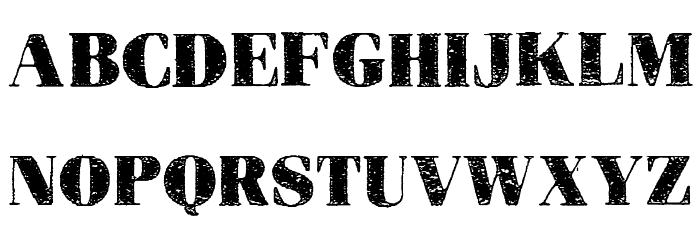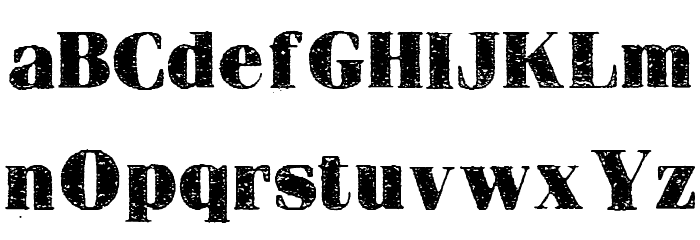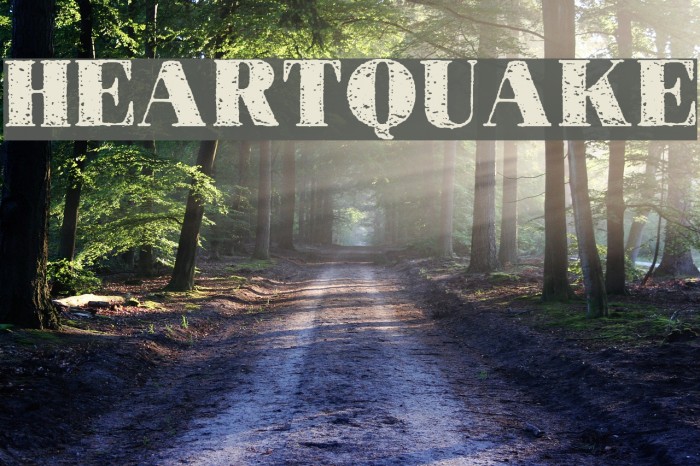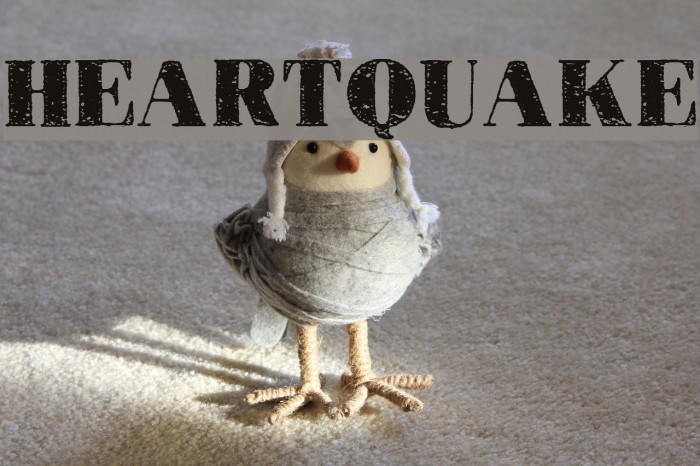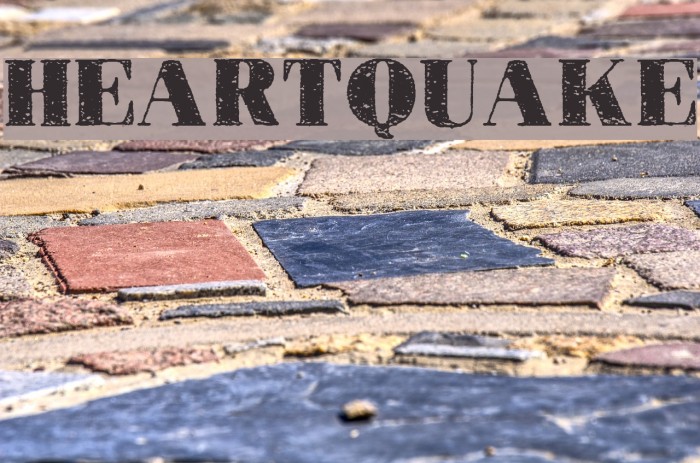
HEARTQUAKE Font
This font features a bold, distressed style with a textured appearance that gives it a rugged, vintage feel. The uppercase and lowercase letters are designed with a consistent weight, creating a strong visual impact. The characters have a slightly condensed width, which enhances their boldness. The texture within each letter adds a unique, worn-out look, making it ideal for projects that require a rustic or grunge aesthetic. The font includes a full set of uppercase and lowercase letters, numbers, and a selection of special characters. Its distinctive style is perfect for creating eye-catching headlines, posters, and branding materials that need a touch of edginess.
A bold, distressed font with a textured, vintage appearance.
- Font: HEARTQUAKE
- Proposed Projects: Ideal for posters, branding, headlines, and any design needing a rugged, vintage touch.
- Overall Style: Vintage
- Use Case: Headlines, Posters, Branding